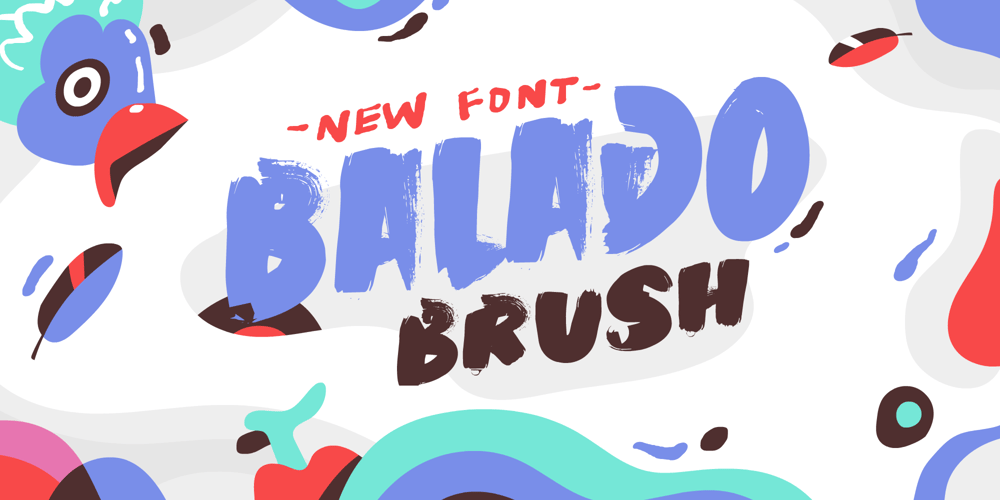
Balado Brush Font Family was designed by Wahyu Eka Prasetya, Afiat Sukmaraga and published by Hati. Balado Brush contains 1 styles and family package options. Balado Brush: Bold Flavors in a Dry Brush FontBalado Brush brings the sizzle to your designs! This fat dry brush font is bursting with personality, perfect for adding a touch of urban grit and handcrafted charm to your projects.Balado Brush is the perfect choice for designers looking to: Make a bold statement Add a touch of urban grit Achieve a handcrafted aesthetic Create a versatile font for various projects–Uppercase